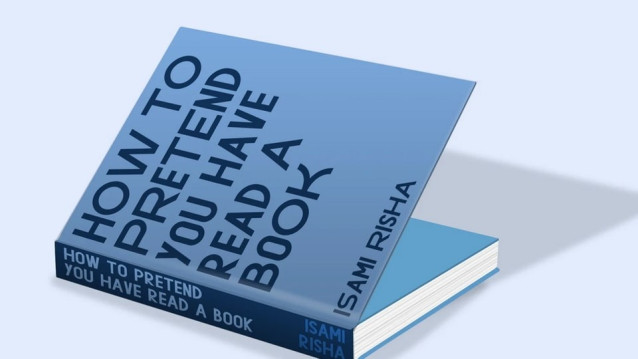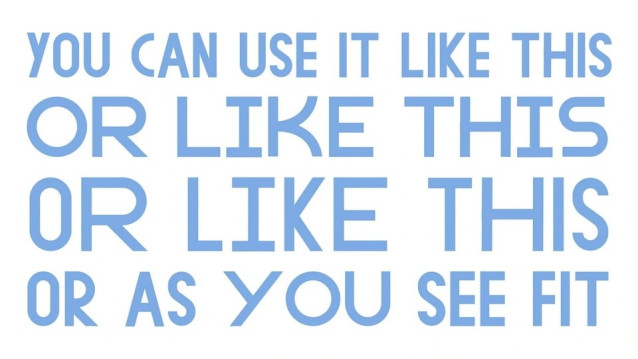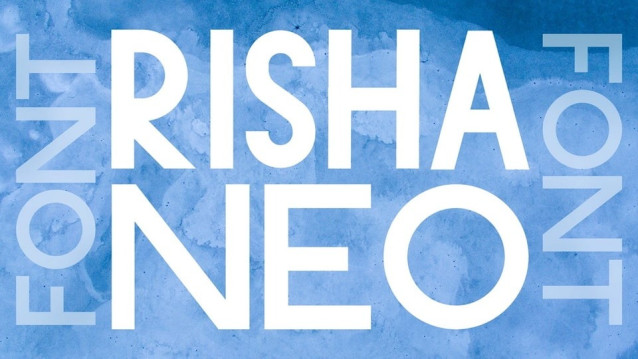
Risha Neo Font
Risha Neo Font is a modern sans serif typeface that plays with proportions and contrast in width, giving each letter a distinctive rhythm and flow. Its clean lines and geometric foundation are balanced by subtle quirks, making it stand out from traditional minimalistic designs.
The varying letter widths create a dynamic texture that adds energy and character to any text, making it perfect for posters, branding, editorial layouts, and digital use.
With its fresh and contemporary style, Risha Neo adapts effortlessly to both bold headlines and sleek body text, delivering a unique visual impact every time.
Risha Neo is a typeface that breaks uniformity while keeping harmony-ideal for designers looking to combine modern sim-plicity with playful originality.